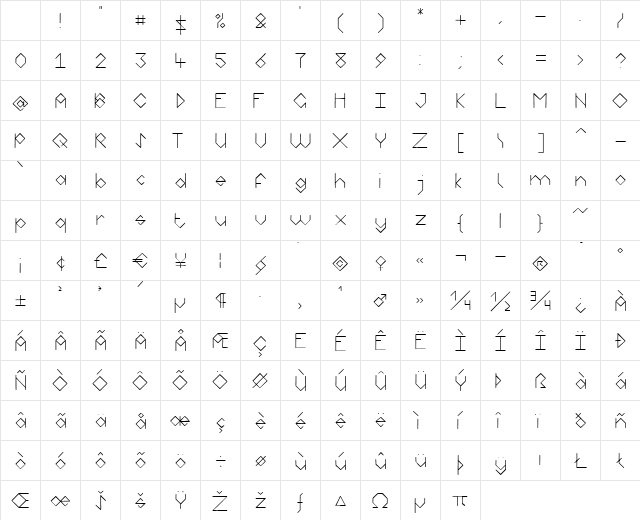
Complete Pantheon Regular glyph index. Displaying only characters natively supported by Pantheon Regular font.
Pantheon is a composed and adaptable typeface that performs quietly and consistently across a wide range of design contexts.